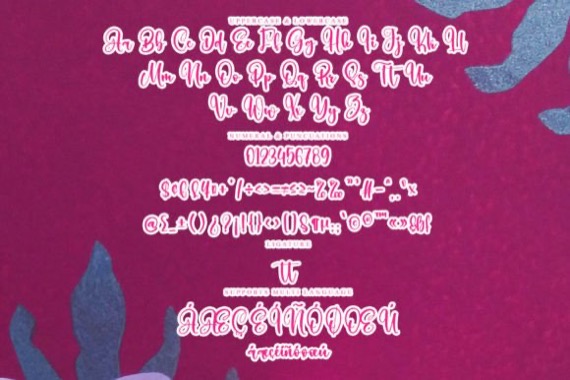
Introducing a new product from YanStudio, Morning Lovely is a stylish and dainty script font. It is suitable for any projects such as : logos, branding projects, label, photography, watermark, special events, and all your other lovely projects that need a beautiful script taste. This font is PUA encoded which means you can access all of the glyphs and swashes with ease.
Morning Lovely Handwritten Font